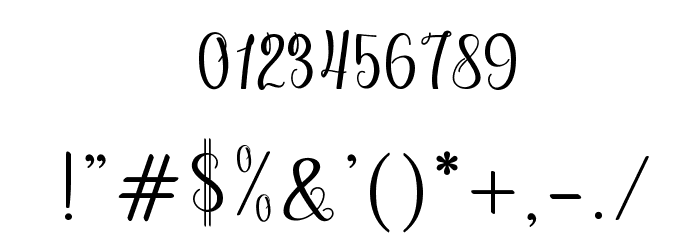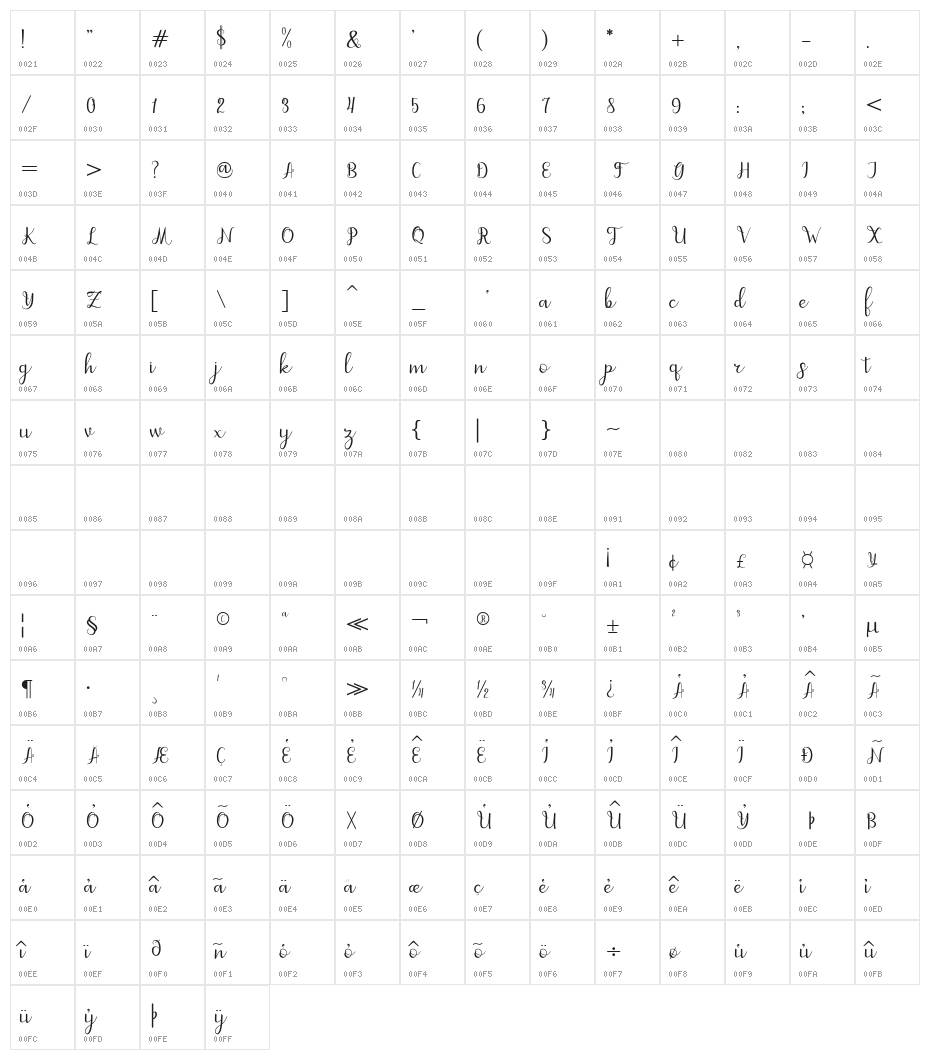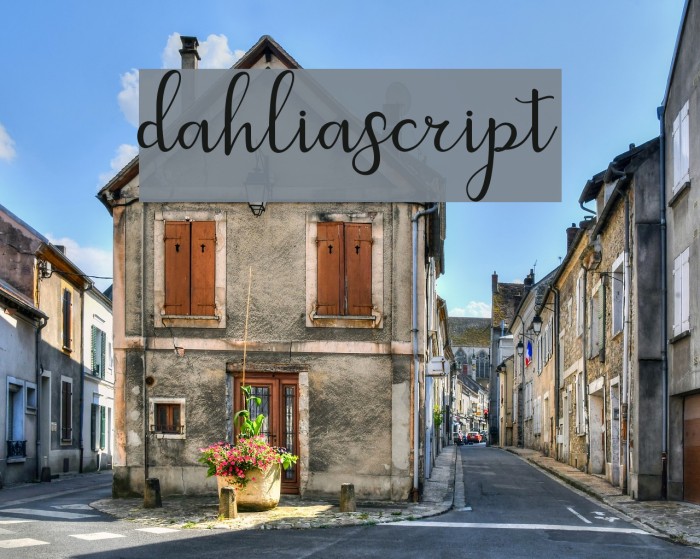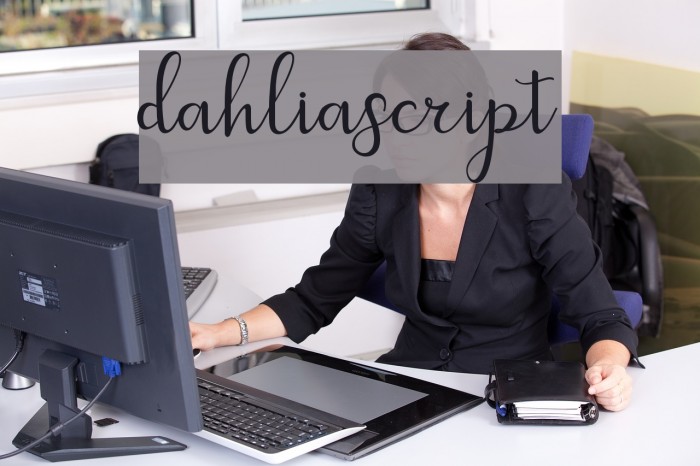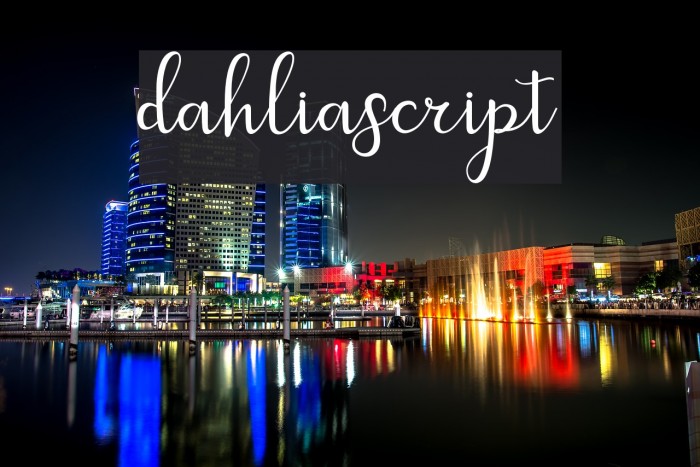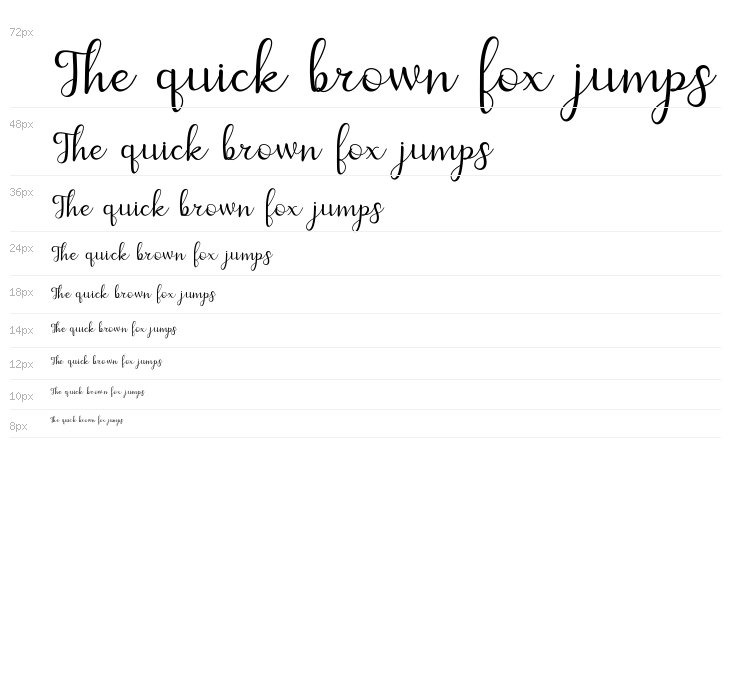
dahliascript Font
dahliascript Description
This elegant script font features a flowing, cursive style with smooth, connected strokes that give it a graceful and sophisticated appearance. The uppercase letters are slightly more ornate, with delicate loops and swashes that add a touch of flair. The lowercase letters maintain a consistent flow, enhancing readability while preserving the font's decorative nature. The numerals and special characters are crafted with the same attention to detail, ensuring a cohesive look across all text elements. This font's design is ideal for projects that require a personal, handwritten touch, such as invitations, greeting cards, or branding materials.
Use CaseLogos, Invitations, Greeting Cards
Proposed ProjectsIdeal for wedding invitations, greeting cards, personal branding, and elegant logos.